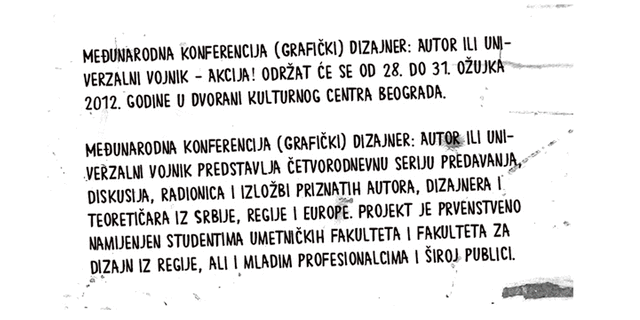
BRC is an informal handwritten font with a bold street mood, supporting many European languages, as well as Cyrillic and Greek. This font has rich possibilities in the form of alternative glyphs, swashes and rare ligatures. Typeface was Designed by Rodrigo Araya Salas in 2014.